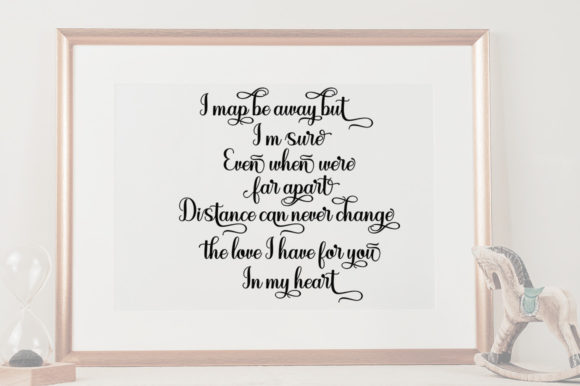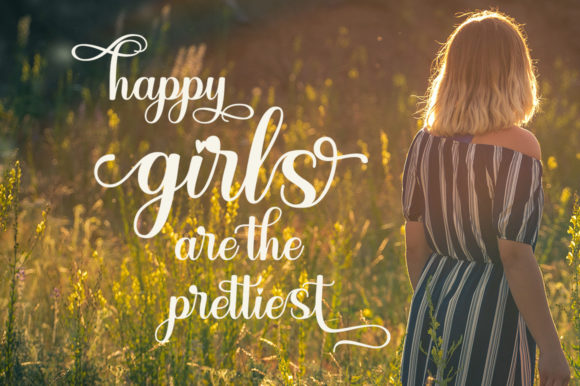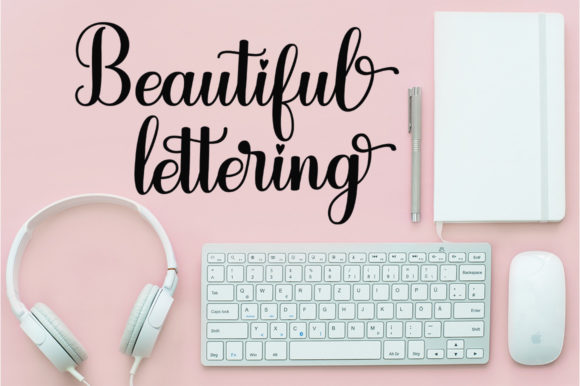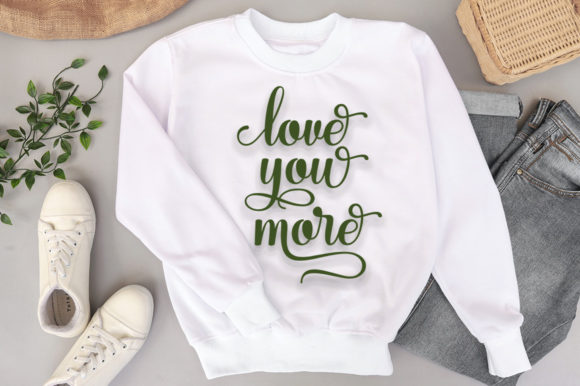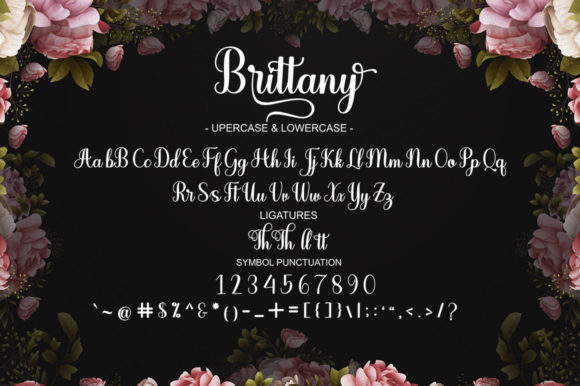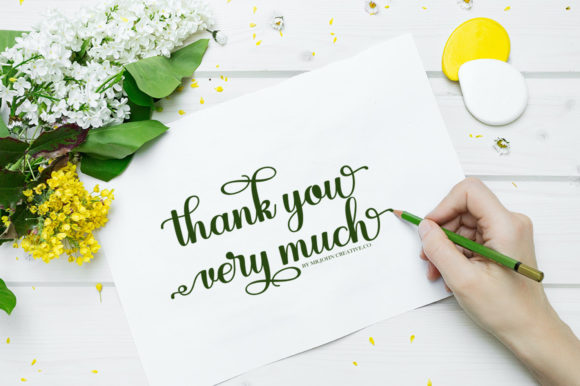
Brittany Font: Elevate Your Designs with a Modern Handwritten Style
In the world of typography, a well-crafted font can make all the difference in elevating your designs from ordinary to extraordinary. If you’re a designer, crafter, or DIY enthusiast looking for a modern handwritten font that exudes elegance and sophistication, look no further than the Brittany Font. This stunning font is designed to bring a touch of personality and flair to your projects, and in this article, we’ll dive into its features, benefits, and uses.
What is Brittany Font?
Brittany is a modern handwritten font that boasts well-balanced characters, meticulously crafted to provide a neat and highly detailed appearance. Its unique design makes it perfect for a wide range of applications, from digital projects to print materials. Whether you’re creating invitations, branding materials, or social media graphics, Brittany Font is sure to impress.
Key Features of Brittany Font
- Modern Handwritten Style: Brittany Font features a contemporary handwritten style that adds a personal touch to your designs.
- Well-Balanced Characters: Each character is carefully crafted to ensure perfect balance and harmony, making it easy to read and visually appealing.
- PUA Encoded: Brittany Font is PUA (Private Use Area) encoded, which means you can access all glyphs and swashes with ease. This feature allows you to customize your text and add unique flourishes to your designs.
- Highly Detailed: The font’s intricate details make it suitable for high-resolution prints and digital displays.
Benefits of Using Brittany Font
So, why choose Brittany Font for your next project? Here are just a few benefits of using this versatile font:
- Elegance and Sophistication: Brittany Font adds a touch of elegance and sophistication to your designs, making it perfect for luxury brands, weddings, and high-end events.
- Flexibility: Its modern handwritten style makes it suitable for a wide range of applications, from formal to informal designs.
- Easy to Use: With its PUA encoding, you can easily access all glyphs and swashes, making it simple to customize your text.
- Time-Saving: Brittany Font’s highly detailed design saves you time and effort, as you don’t need to spend hours creating custom lettering.
Uses of Brittany Font
Brittany Font is an incredibly versatile font that can be used in various design projects, including:
- Wedding Invitations: Add a touch of romance and elegance to your wedding invitations and stationery.
- Branding Materials: Use Brittany Font to create stunning logos, business cards, and letterheads for your brand.
- Social Media Graphics: Elevate your social media graphics, such as Instagram posts and Facebook banners, with this beautiful font.
- Digital Art: Incorporate Brittany Font into your digital art, such as illustrations, watercolor designs, and mixed media projects.
Tips for Using Brittany Font Effectively
To get the most out of Brittany Font, here are some tips to keep in mind:
- Pair with Other Fonts: Experiment with pairing Brittany Font with other fonts to create a unique and visually appealing combination.
- Adjust Font Size and Color: Play with font sizes and colors to add depth and hierarchy to your design.
- Use Swashes and Glyphs: Take advantage of Brittany Font’s PUA encoding to add custom swashes and glyphs to your text.
In conclusion, Brittany Font is a stunning modern handwritten font that offers a unique blend of elegance, sophistication, and flexibility. Its well-balanced characters, PUA encoding, and highly detailed design make it perfect for a wide range of applications. Whether you’re a designer, crafter, or DIY enthusiast, Brittany Font is sure to elevate your designs and add a touch of personality to your projects. So why wait? Get creative with Brittany Font today and take your designs to the next level!